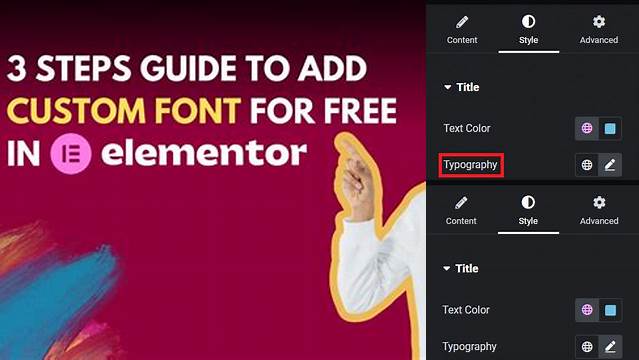
Add Fonts In Elementor Free: A Simple Guide
Hey everyone! So, you're looking to spice up your WordPress website built with Elementor, right? And you want to do it without spending a dime? Awesome! Today, we're diving into how to add fonts in Elementor Free. Trust me, it's easier than you think, and it can completely transform the look and feel of your site. Changing fonts is a fantastic way to not only enhance readability but also to inject some personality into your brand. We'll cover various methods, from using Google Fonts to uploading custom fonts, ensuring your site looks exactly the way you envision it. Let's get started and make your website a visual masterpiece! It's all about making your site user-friendly and visually appealing. The right fonts can significantly improve the user experience, making your content more engaging and easier to read. Are you ready to learn how to add fonts in Elementor Free and take your website design to the next level? Let's get started!
H2: The Power of Typography: Why Fonts Matter
Alright, before we jump into the how-to, let’s talk about why fonts are so incredibly important. Typography, the art and technique of arranging type to make written language legible, readable, and appealing when displayed, is a cornerstone of good web design. Your choice of fonts can make or break your website's appeal. Think of it like this: you wouldn't wear mismatched clothes, would you? The same principle applies to your website. Your fonts need to complement each other and reflect your brand's personality. Selecting the right fonts is about more than just aesthetics; it's about creating a positive user experience. Good typography ensures your content is easily digestible, which keeps visitors engaged. The right fonts can significantly improve your site’s bounce rate and time on page. Guys, it's all about making your website user-friendly and visually appealing. The right fonts can significantly improve the user experience, making your content more engaging and easier to read. When you choose fonts, consider a few key things. Firstly, readability is key. You want fonts that are easy on the eyes, especially for body text. Avoid overly ornate or difficult-to-read fonts. Secondly, think about your brand. Your fonts should align with your brand's image. If you're a serious business, you might opt for clean, professional fonts. If you're a creative agency, you might go for something more modern and playful. Finally, consider font pairings. You don't want to use the same font for everything. Pair a headline font with a body font that complement each other. Let's break it down: serif fonts (like Times New Roman or Georgia) are generally considered more traditional and are often used for body text, while sans-serif fonts (like Arial or Open Sans) are seen as more modern and work well for headlines and on-screen reading. The interplay of these elements creates a harmonious and appealing design that keeps visitors coming back for more. So, the next time you think about your website design, don't underestimate the power of typography. It's a crucial element that can make or break your online presence.
H3: The Impact of Font Selection on Website Design
Font selection goes way beyond mere aesthetics; it profoundly influences your website's functionality and how users perceive your brand. The choice of fonts directly affects readability, user experience, and the overall professionalism of your site. Choosing the correct fonts helps establish your brand's personality and voice, making your website more memorable and recognizable. A well-chosen font can immediately communicate your brand's values. For example, a sleek, modern sans-serif font conveys innovation, while a classic serif font suggests trust and tradition. Think about the kind of message you want to send. Is your business formal and professional, or is it fun and creative? The fonts should match that. Furthermore, the right fonts enhance the user experience by making your content easier to digest. When users can read your text comfortably, they are more likely to stay on your site, explore your content, and convert. Bad typography can drive visitors away. Make sure your chosen fonts are legible on all devices. A font that looks great on a desktop might be unreadable on a mobile device. With the increasing use of mobile devices, responsive typography is essential. Consider the different screen sizes and how your fonts will render on each. This ensures your content is accessible and easy to read for everyone, no matter how they access your site. In essence, font selection is a critical component of web design. It impacts your site's appearance, how your content is consumed, and how your brand is perceived. So, take the time to carefully select your fonts, test them on different devices, and see how they complement your overall design. This attention to detail can make a significant difference in your site's success.
H2: Accessing Google Fonts Directly in Elementor Free
Okay, let’s get to the good stuff: how to actually add fonts in Elementor Free! The simplest and most common method is using Google Fonts. Elementor has built-in integration with Google Fonts, making it super easy to access a vast library of free fonts directly within the Elementor interface. Google Fonts is a fantastic resource, offering a wide variety of fonts that are free to use for both personal and commercial projects. The process is straightforward, and you don't need any coding skills to get started. First, make sure you have Elementor installed and activated on your WordPress site. Then, open the Elementor editor for the page or post you want to customize. Once you're in the Elementor editor, you can access the typography options within any Elementor widget. For example, if you want to change the font of a heading, click on the heading widget, go to the 'Style' tab, and look for the 'Typography' section. This section allows you to customize various aspects of your text, including the font family, size, weight, style, and more. From the font family dropdown, you can select from a list of available fonts, including all the Google Fonts that are integrated with Elementor. Simply start typing the name of the font you want, and Elementor will filter the list for you. Once you find your font, click on it to apply it to your text. You can then adjust the other typography settings to fine-tune the look. Using Google Fonts in Elementor is incredibly easy and flexible. It's a quick way to change fonts and experiment with different styles without any extra plugins or coding. This direct integration simplifies the design process, enabling you to modify your site’s appearance rapidly. By leveraging Google Fonts, you can easily achieve a professional and visually appealing website design that truly reflects your brand. It's all about making your website design efficient and user-friendly.
H3: Step-by-Step: Applying Google Fonts in Elementor
Let’s dive into the step-by-step process of applying Google Fonts in Elementor. It’s pretty straightforward, but let's make sure we cover all the bases. This process will ensure that you can easily select, customize, and implement Google Fonts on your website to make it visually appealing and user-friendly. First, make sure you have Elementor installed and activated on your WordPress website. Log in to your WordPress dashboard and navigate to the page or post where you want to apply the font changes. Open the page or post with Elementor by clicking on the 'Edit with Elementor' button. Once the Elementor editor loads, you’ll see your website's design interface. Now, choose the element you want to modify, such as a heading, paragraph, or button. Click on the element to open its settings. In the left-hand panel, go to the 'Style' tab. The style tab includes all the formatting options. Find the 'Typography' section, which allows you to customize text appearance. Within the typography settings, you’ll see a 'Font Family' dropdown. Click on this dropdown to open a list of available fonts. Start typing the name of the Google Font you want to use. Elementor will dynamically filter the list to match your search. Once the font appears, click on it to apply it to your selected element. After selecting the font, adjust other typography settings like font size, weight, style (italic, bold), line height, letter spacing, and text transform to suit your design needs. Experiment with different settings to find the perfect look that aligns with your brand and website style. Once you’re happy with the changes, click the 'Update' button to save your work and publish your changes. Review the updated page on your website to ensure the font is displayed correctly and is aesthetically pleasing. This step helps confirm that your changes are visible to site visitors. Remember, consistency is key. Applying the same font across your website creates a cohesive and professional look. By following these simple steps, you can effortlessly add Google Fonts to your Elementor designs, enhancing your website’s appearance and user experience.
H2: Utilizing Custom Fonts: Uploading Fonts to Elementor Free
Now, let’s talk about using custom fonts. While Google Fonts offers a fantastic selection, sometimes you need something unique. Maybe you have a specific font that perfectly matches your brand identity, or perhaps you want to try something different. Elementor Free doesn’t directly support custom font uploads, but don't worry, there's a workaround! You'll need to install a plugin that allows you to upload custom fonts and integrate them with Elementor. Several excellent plugins are available that enable this functionality, such as Custom Fonts by Brainstorm Force or Font Plugin for Elementor. Each plugin has a slightly different setup, but the general process is similar: install and activate the plugin, upload your font files (usually in .woff, .woff2, .ttf, and/or .otf formats), and then the plugin will make those fonts available within Elementor. This method provides the flexibility to use any font, creating a unique and customized look for your site. You're not limited to just what Google offers; you can incorporate fonts that are specific to your branding. This method offers a significant design advantage. It lets you take control of your website's look and feel, giving you a completely personalized result. Once the font is uploaded, the plugin makes it available within Elementor's typography settings, just like with Google Fonts. This means you can easily apply your custom font to any element on your page. The right plugin provides a seamless integration, allowing you to enhance the design without any coding or technical hassle. This is how you can add fonts in Elementor Free and take complete creative control over your website’s design.
H3: Plugin Recommendations for Custom Font Uploads
When it comes to adding custom fonts to Elementor Free, choosing the right plugin can make all the difference. It's crucial to select a reliable plugin that is compatible with Elementor and offers an easy-to-use interface for uploading and managing fonts. Here are a few plugin recommendations that you can consider, which will help to add fonts in Elementor Free effectively. Custom Fonts by Brainstorm Force is a popular choice known for its user-friendly interface and reliable performance. This plugin lets you easily upload various font formats. It smoothly integrates with Elementor, making your custom fonts accessible within the Elementor typography settings. Font Plugin for Elementor is another excellent option. This plugin is specifically designed for Elementor, ensuring seamless integration. It allows you to upload fonts and manage them directly within the Elementor interface. Both plugins provide a straightforward method for uploading your font files and integrating them with Elementor. When selecting a plugin, consider a few essential factors. Make sure the plugin is regularly updated to ensure compatibility and security. Check its reviews and ratings to gauge its performance and user satisfaction. Read through user manuals and any tutorials to ensure the plugin aligns with your technical skills. Once you’ve installed the plugin, you'll typically need to upload your font files in formats like .woff, .woff2, .ttf, and .otf. The plugin will handle the rest, making your custom fonts available within Elementor’s design options. By using a plugin to add fonts in Elementor Free, you get the flexibility to enhance your website with a unique look that sets you apart.
H2: Troubleshooting Font Display Issues in Elementor
Sometimes, things don’t go as planned. You might encounter font display issues even after successfully adding fonts. Here’s how to troubleshoot common problems. The first thing to check is caching. WordPress uses caching to speed up your site, but it can sometimes interfere with font changes. Clear your browser cache and your website cache (if you use a caching plugin like WP Rocket or LiteSpeed Cache) to see if that resolves the issue. Browser caching can store old font files, causing the changes not to appear immediately. Next, check your font files. Ensure that the font files are correctly uploaded and in the correct format. Sometimes, corrupted or incompatible font files can cause display problems. Also, verify the font file paths within the plugin’s settings, or the font’s CSS file if you are using custom CSS. If you're using a custom font, double-check the file paths. A small error in the file path can prevent the font from loading correctly. Make sure that the file paths are correct and match the locations where you uploaded the font files. Another common issue is font weight and style. Make sure the font weight and style are properly specified within your Elementor settings. If the font weight you've selected doesn't exist (e.g., a bold font isn’t available), the browser may fall back to a default font. Lastly, check for conflicting CSS rules. Another reason how to add fonts in Elementor Free may not be working as intended. If you have custom CSS applied to your site, it could be overriding the font settings. Inspect your website’s CSS using your browser’s developer tools to identify any conflicting styles. Sometimes, another plugin or theme might override the font settings you have set. To troubleshoot, deactivate your other plugins or switch to a default WordPress theme to see if the font displays correctly. This helps determine if another plugin or theme is the source of the issue. By systematically going through these troubleshooting steps, you can usually identify and resolve any font display issues. This careful approach allows you to easily add fonts in Elementor Free.
H3: Common Font Display Problems and Solutions
Let's dive into the common font display problems you might encounter and how to solve them. One common issue is fonts not displaying at all. If your font isn't showing up on your website, the first thing to check is the font file. Make sure you've uploaded the correct font files in the correct format. Sometimes, a file might be corrupted or the wrong file type, preventing it from loading correctly. Double-check the file path. If you are using a custom font, ensure that the file path in your plugin settings or CSS is correct. A simple typo can prevent the font from loading. Clear your browser cache. Sometimes, the browser caches the old font files, preventing the new fonts from appearing. Clearing your browser cache, or using a private browsing mode, can help resolve this. Another issue is incorrect font weight or style. If your font appears in the wrong weight or style, it might be due to missing font variations. Ensure you've uploaded all the font variations, such as regular, bold, italic, etc. Check your CSS. Make sure the font weight and style are correctly specified in your Elementor settings or in any custom CSS you've added. Make sure your font has all the variations. Then, you can make any adjustment in the Elementor editor. Check for conflicting CSS rules. If another plugin or theme is overriding your font settings, it can cause the font to display incorrectly. Inspect your website’s CSS using your browser’s developer tools to identify any conflicting styles. Deactivate other plugins. To troubleshoot, deactivate other plugins and see if the font displays correctly. This helps determine if another plugin is the source of the issue. By addressing these common problems, you can successfully add fonts in Elementor Free. This step allows you to troubleshoot all the display issues that can happen in Elementor.
H3: Best Practices for Font Optimization
Here are the best practices for optimizing fonts to enhance website performance. Start by selecting a minimal set of fonts. Too many fonts can increase loading times. Opt for a limited number of font families, usually no more than two or three. Choose a primary font for headings and a secondary font for body text. This keeps your design clean and avoids unnecessary loading times. Next, use modern font formats. Prioritize .woff2 font files. .woff2 offers superior compression compared to older formats like .woff, which reduces file sizes and speeds up loading. Convert all your font files to .woff2 before uploading. Preload important fonts. Preloading essential fonts helps the browser prioritize loading these fonts, improving the perceived performance of your website. Use the `<link rel=